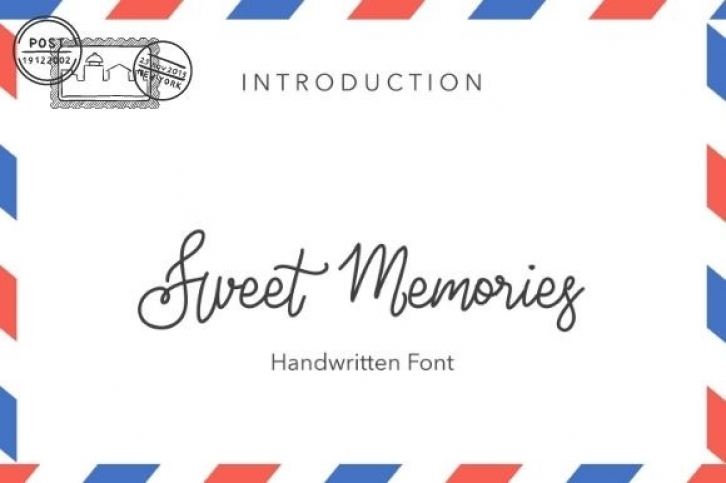
Sweet Memories is a beautiful and lovely handwritten font. It looks stunning on wedding invitations, thank you cards, quotes, greeting cards, logos, business cards and every other design which needs a personalized touch.